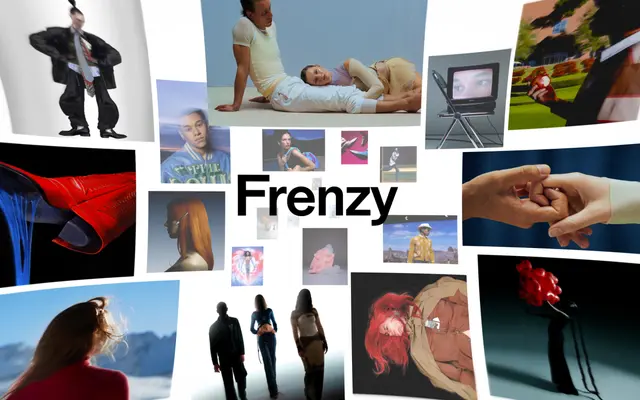
Modale Antique
Formagari · Emmanuel Besse · 2024
A grotesque sans by Emmanuel Besse referencing Antiques Maigres Larges, Venus and Monotype Grotesque, with sharp cut endings that give it a clean rhythmic character without austerity.
Originally drawn for a contemporary art centre identity proposal, Modale Antique distils three early twentieth-century grotesque models into eight styles across four weights, each with a matching italic. Its nearly monolinear strokes and rounded curves avoid the eccentricities of earlier grotesques, while the sharp-cut terminals bring crisp definition at all sizes. The family performs equally well in all-caps settings and continuous text, and was awarded second prize at the Club des DA in 2023.
Modale Antique draws on historical grotesque references including Antiques Maigres Larges, Venus and Monotype Grotesque, with sharp cut endings and a nearly monolinear construction placing it squarely in the grotesque tradition.